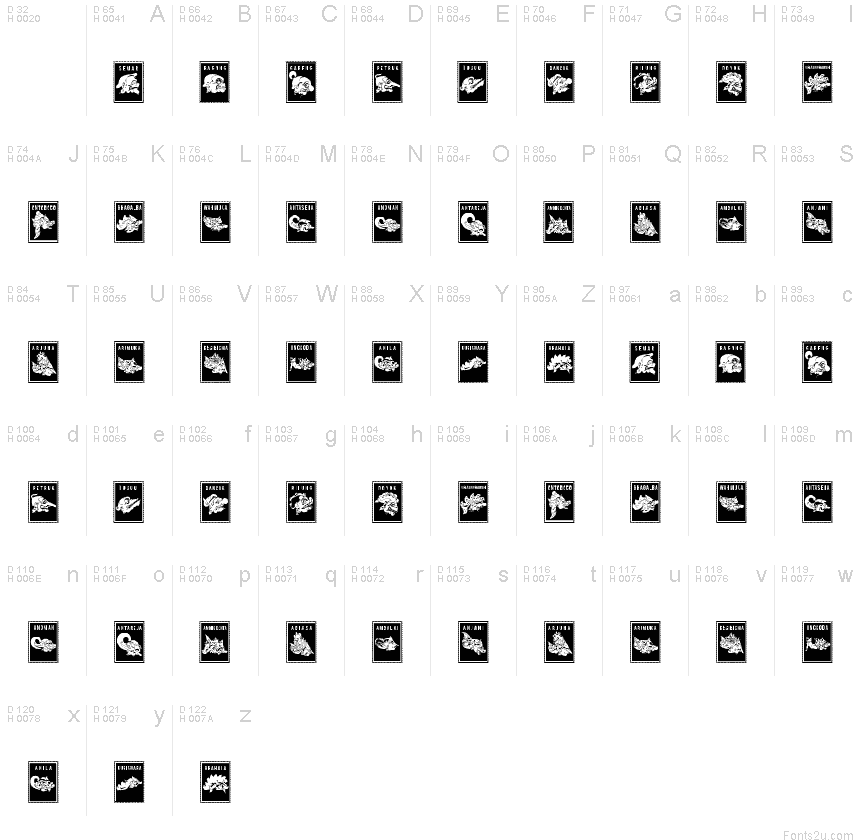
Perangko Wayang is a free Asian dingbat font built around richly drawn wayang figures. Each symbol presents a distinct puppet character with sweeping profiles, elaborate headdresses, curled limbs, and fine costume ornament. The lively linework keeps the collection close to traditional theatrical illustration rather than simplified iconography across a varied cast of expressive faces.
Publishing projects can use these figures in folklore features and cultural programs, where their narrative detail supports the subject directly. They also suit festival posters, performance merchandise, and educational graphics, with each puppet functioning as a highly expressive miniature illustrated emblem on the page instead of neutral lettering.
Wayang is a shadow-puppet tradition in Indonesia. I created “Perangko Wayang” to document this culture.